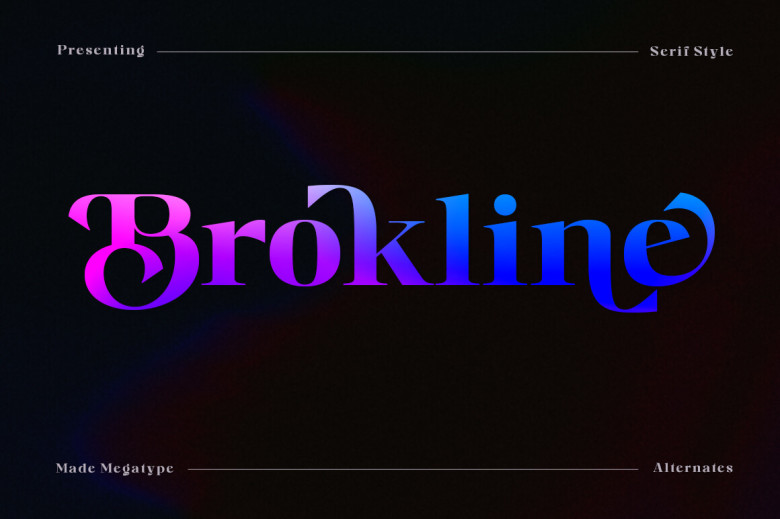
Brokline Font
Brokline Font is a Display Serif font with a modern sophistication, fun, distinctive style, making it easy to read at text sizes while looking fantastic on displays. With over 500 glyphs – such as ligatures and alternatives (ligature variants) available – it provides ample opportunity for creating amazing designs such as logos, branding projects, television shows, movies,
wedding designs and posts on social media, ads packaging, labels, product designs, photographs, watermarks, invitations, special events or any other thing else necessary to set a theme or create amazing themes!
Brokline Serif Font